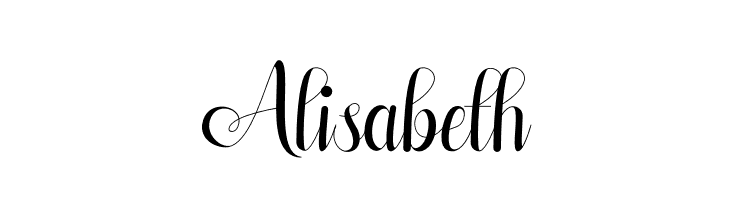
A bold, slanted script font with dynamic strokes and a handwritten feel.
A bold, expressive script font with a lively, handwritten style.
A dynamic, brush-style cursive font with fluid, connected strokes.
An elegant script font with intricate swirls and a sophisticated style.
An elegant, cursive script font with ornate swashes and flowing lines.
An elegant script font with flowing, cursive letterforms and sophisticated flourishes.
A flowing, cursive handwritten font with elegant connections and smooth strokes.
A dynamic and expressive script font with fluid, cursive strokes.